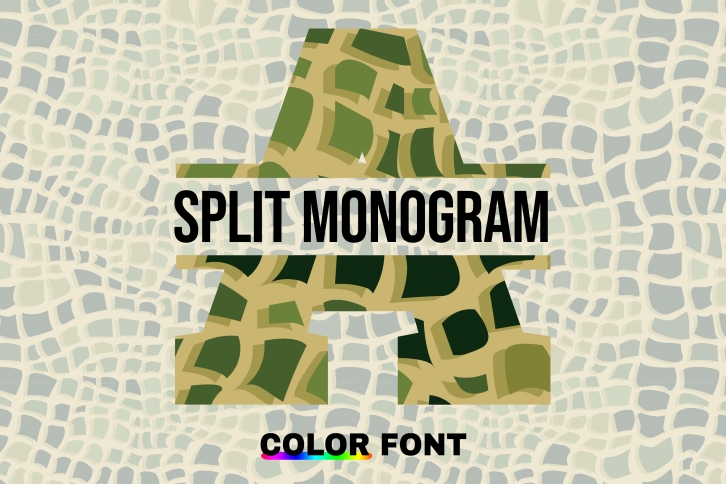
Alligator Split is an incredibly cool font containing cute Alligator things. Whether you use it for custom designs, DIY crafts, or just any creation that requires a lovely touch, this font will be an amazing choice.